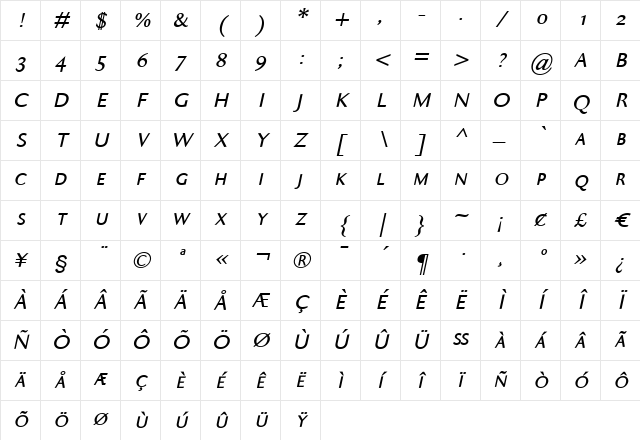
Ela Sans SemiBold Caps Italic
Foundry: Gert Wiescher, Wiescher-Design, Munich, Germany, www.wiescher-design.de
Design Context for Ela Sans SemiBold Caps
Ela Sans SemiBold Caps is a composed and adaptable typeface that performs quietly and consistently across a wide range of design contexts. The slanted form adds forward momentum and visual energy. Its bold stroke weight gives it real presence on the page.
Pro Tip: Use Ela Sans SemiBold Caps for emphasis, pull quotes, and subheadings where its slanted energy can add rhythm to the layout.
Who designed the Ela Sans SemiBold Caps Italic font?
This font was published by Gert Wiescher, Wiescher-Design, Munich, Germany, www.wiescher-design.de. Check the technical specs section for copyright and designer details.